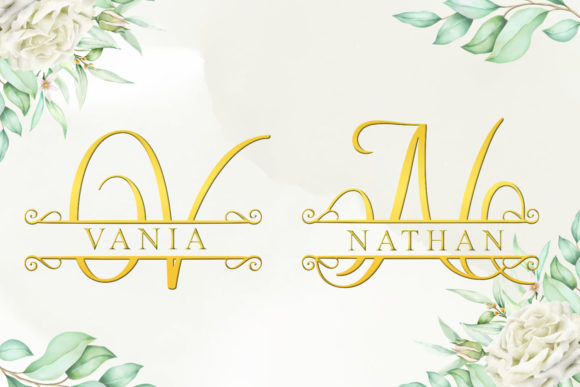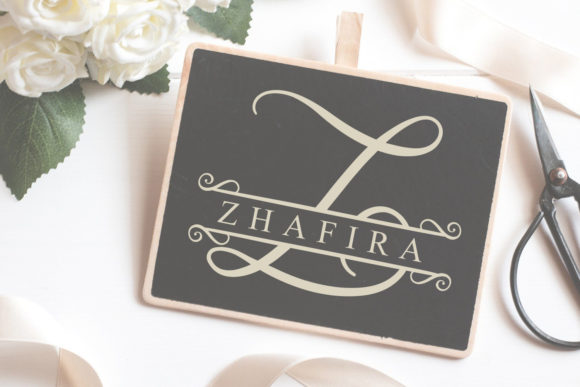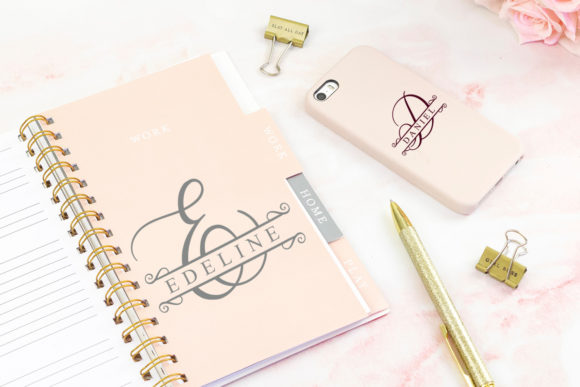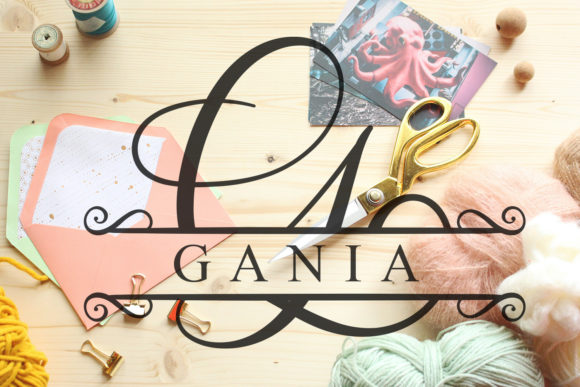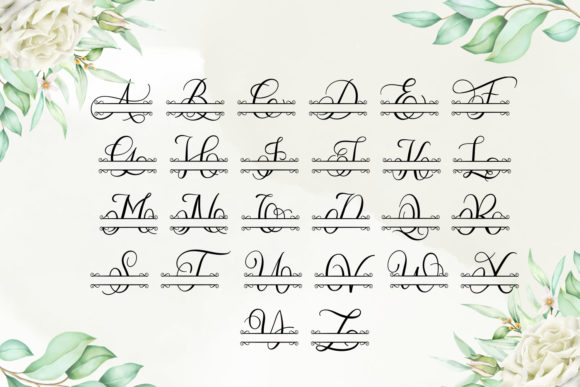
Discover the Timeless Charm of the Belania Monogram Font
Have you ever stared at a beautiful, handwritten invitation and felt a surge of creativity, wondering how to recreate that same magic in your own designs? For designers and crafty individuals, the Belania Monogram Font is the perfect answer to that question. This charming decorative font is designed to evoke an authentic, vintage feel that’s perfect for creating stunning invitations, beautiful stationery art, eye-catching social media posts, and adorable greeting cards.
With its unique, elegant style, the Belania Monogram Font is a valuable addition to any designer’s toolkit. Its versatility makes it ideal for a wide range of projects, from wedding invitations to birthday cards, and its timeless charm ensures that your designs will remain classic and sophisticated for years to come.
Belania Monogram Font Key Features
- Unique Monogram Style: The font features intricate and elegant monogram designs, making it perfect for creating personalized stationery, invitations, and other custom items.
Belania Monogram Font Review
Overall, I think the Belania Monogram Font is a solid choice for projects where a touch of elegance is required. ✨ Here are a few things that work well:
- Unique monogram design: The font is perfect for creating custom monograms, making it a great choice for branding and personal projects.
- High-quality glyphs: The font includes a wide range of glyphs, including uppercase and lowercase letters, numbers, and punctuation marks.
- Easy to read: Despite its ornate design, the font is surprisingly easy to read, making it suitable for body text as well as headings.
However, there are a few limitations to keep in mind: ⚠️
- Limited language support: The font only includes glyphs for the Latin alphabet, which may be a problem for projects that require support for non-Latin scripts.
- No bold or italic styles: While the font includes a range of glyphs, it doesn’t include bold or italic styles, which may be a limitation for certain projects.
Overall, I think the Belania Monogram Font is a great choice for projects that require a touch of elegance and sophistication. While it may have some limitations, its unique design and high-quality glyphs make it a solid choice for designers looking for a stylish font.
The Belania Monogram Font is perfect for creating custom monograms, wedding invitations, and personalized stationery. Use it to add a touch of elegance and sophistication to your designs.
For best results, use the font in conjunction with a clean and simple design aesthetic.